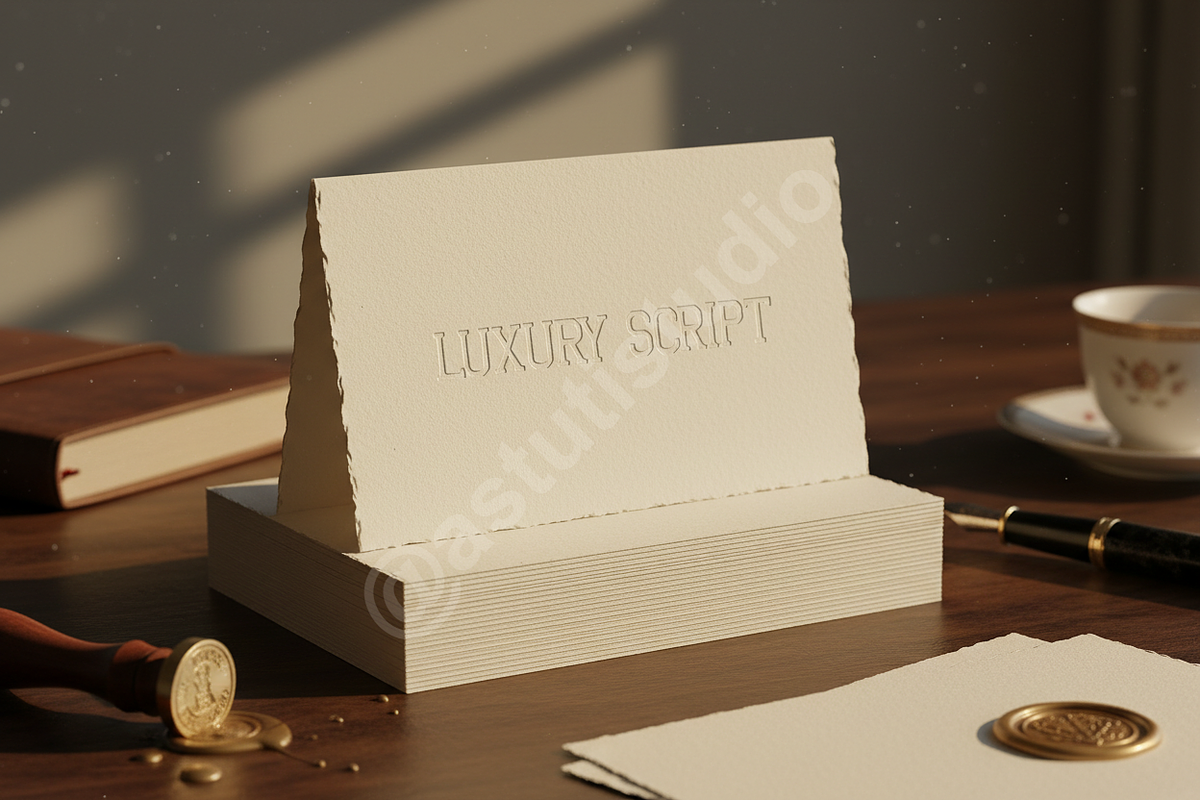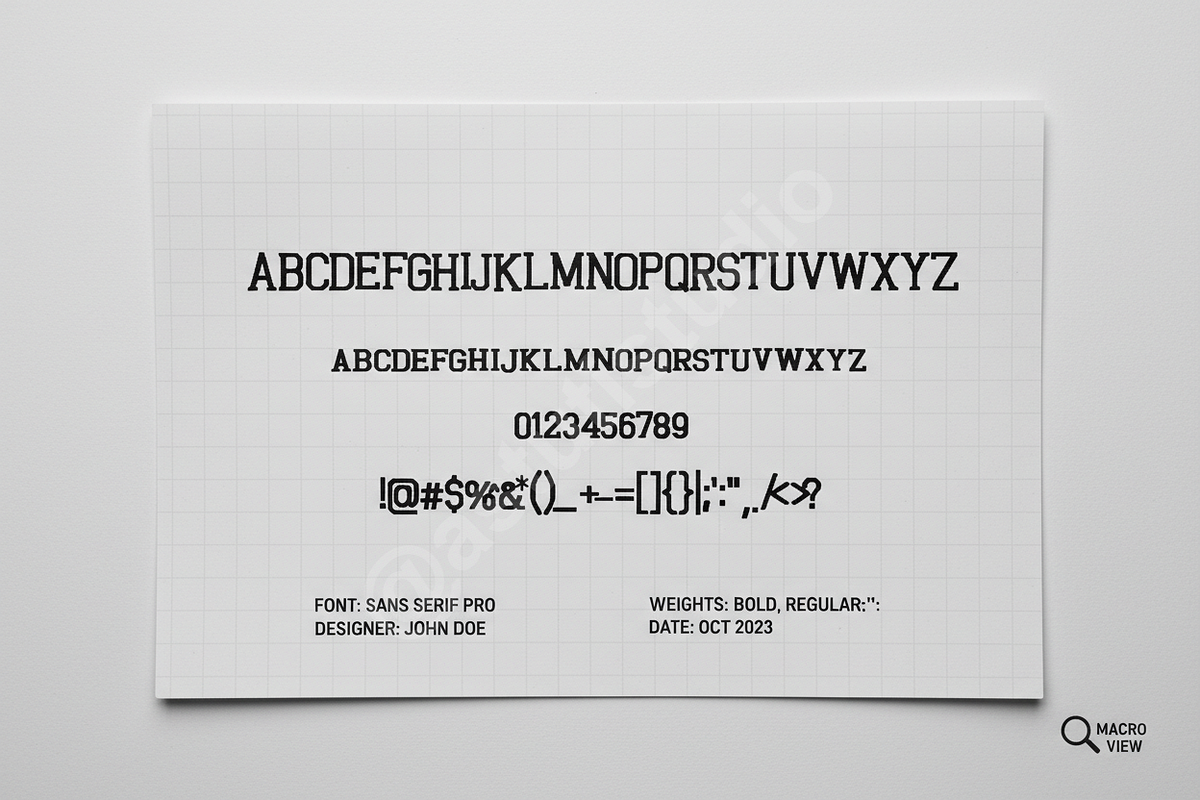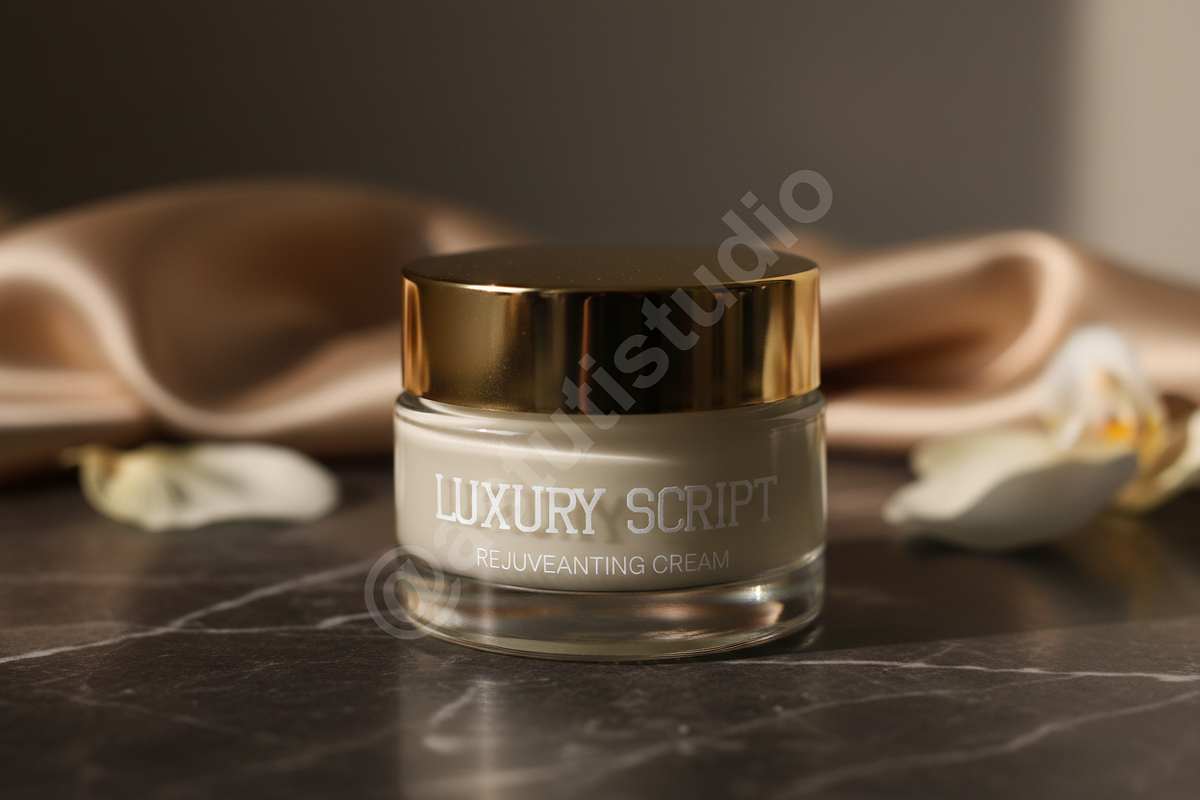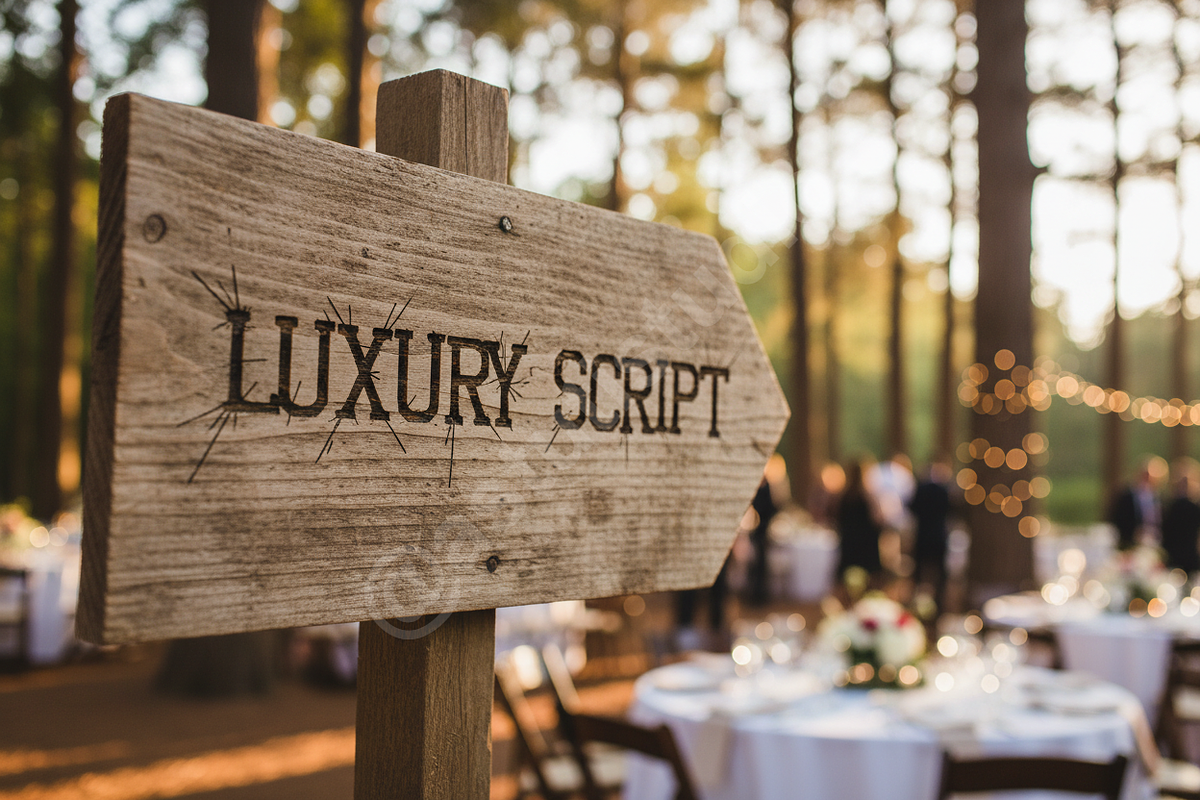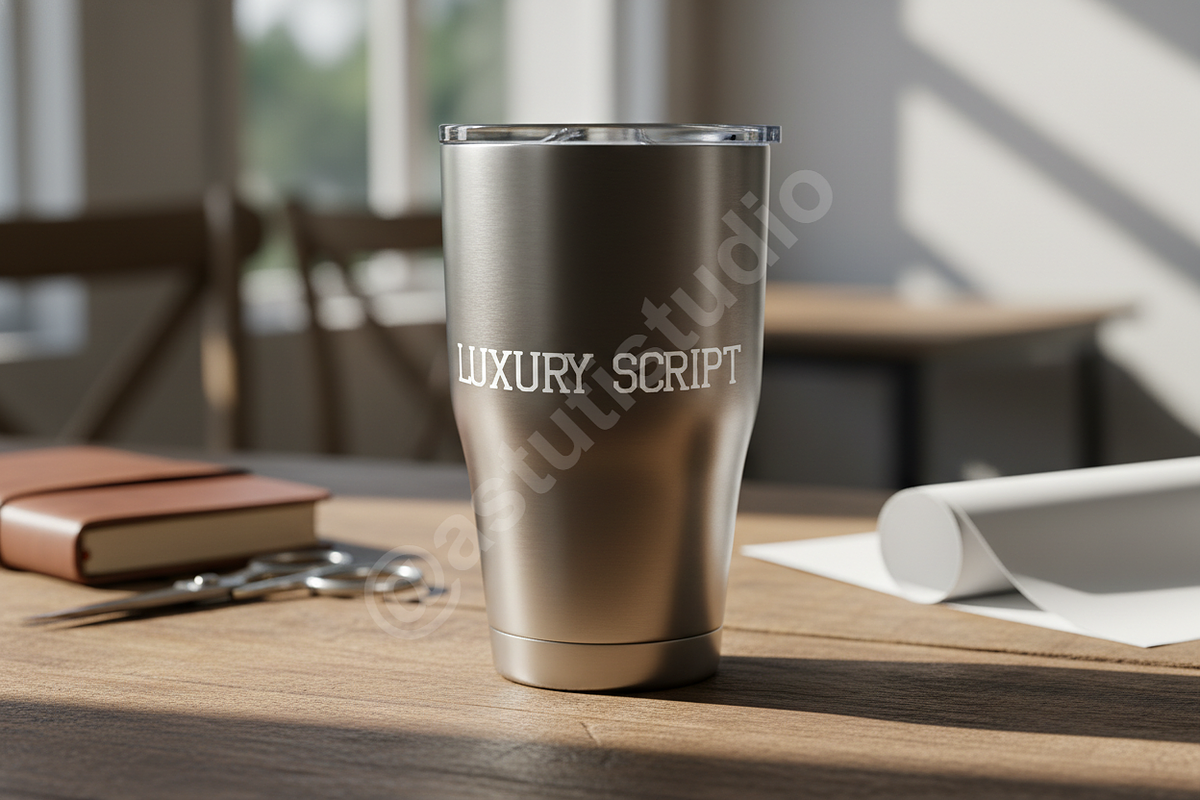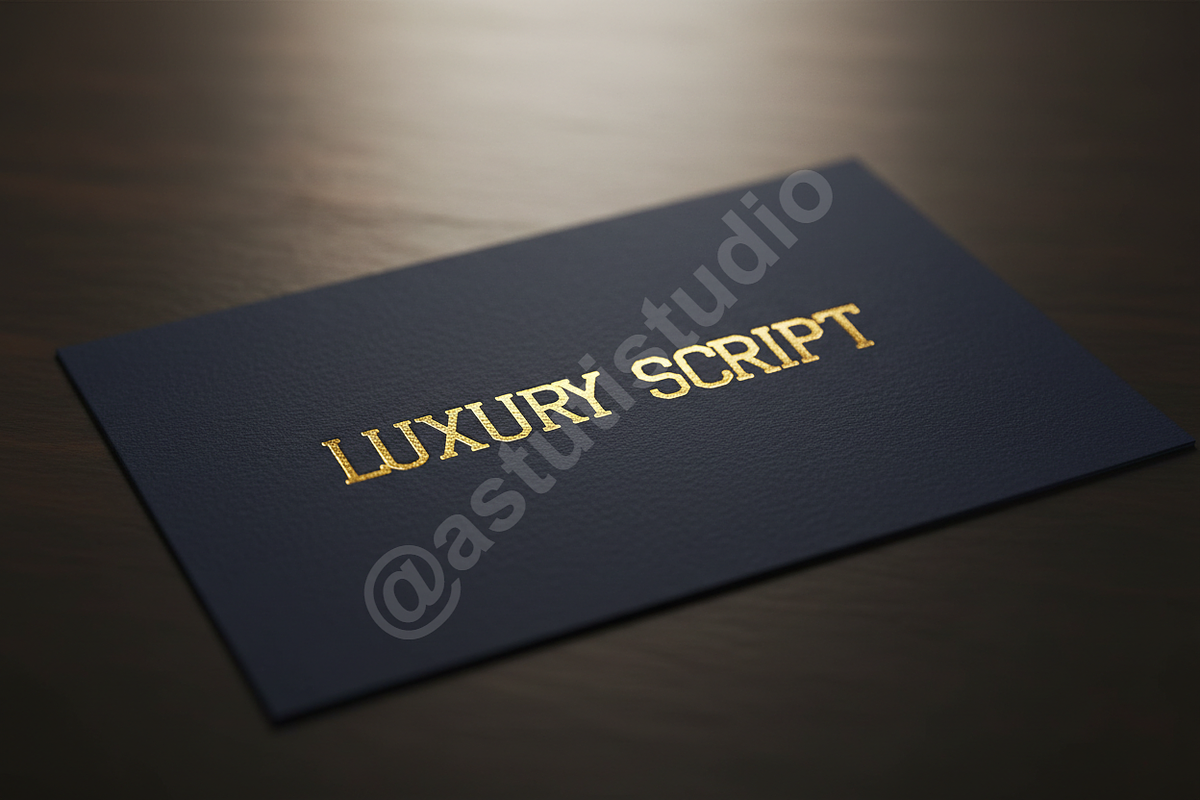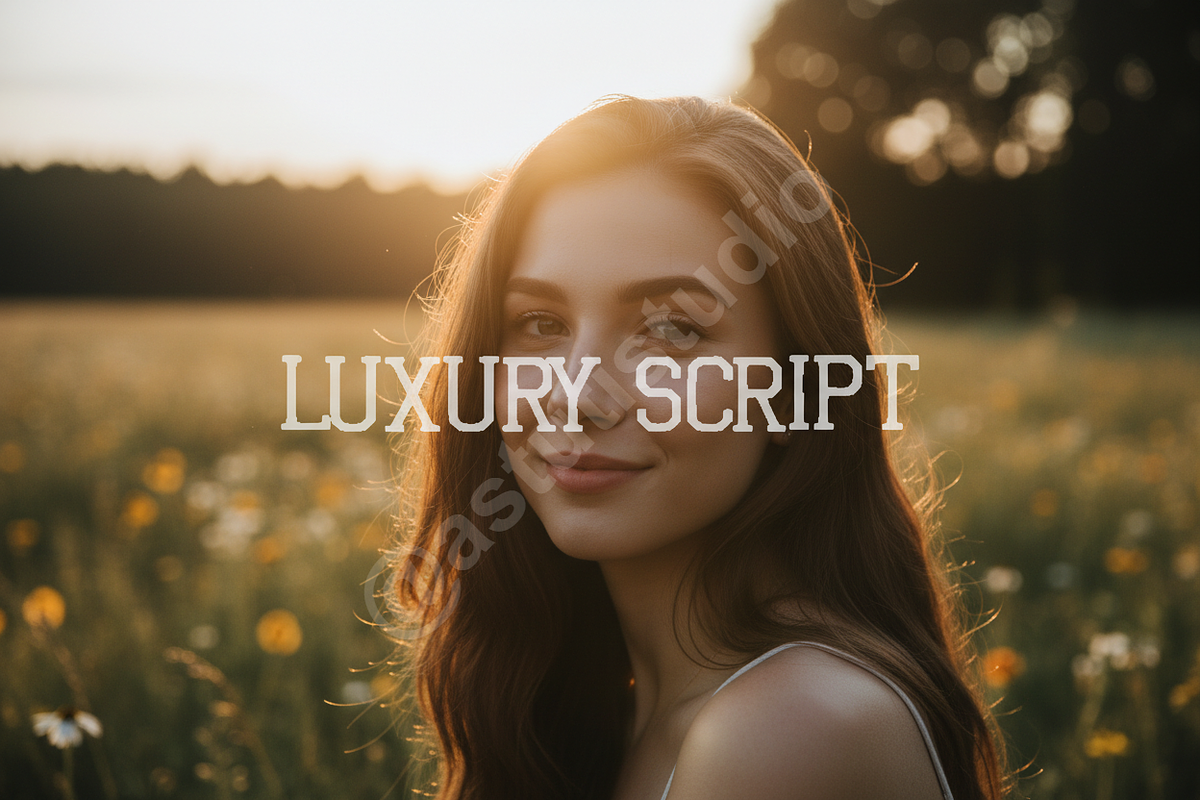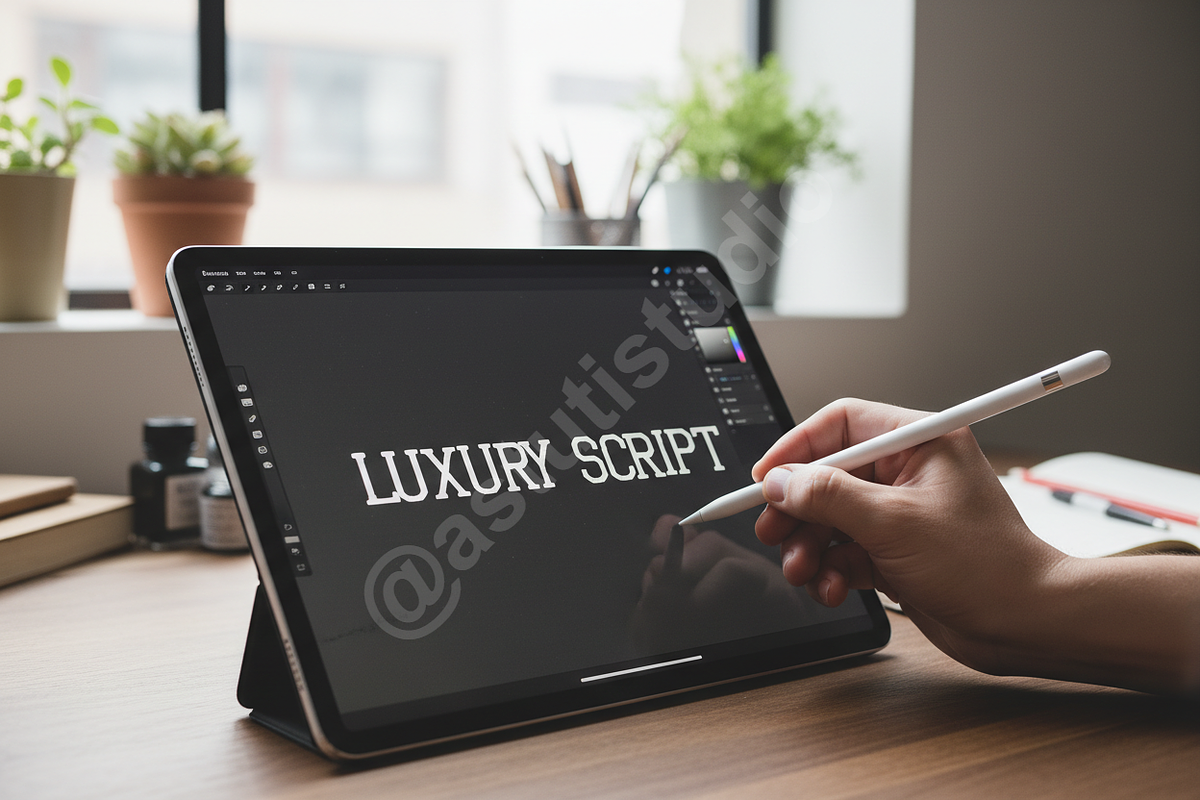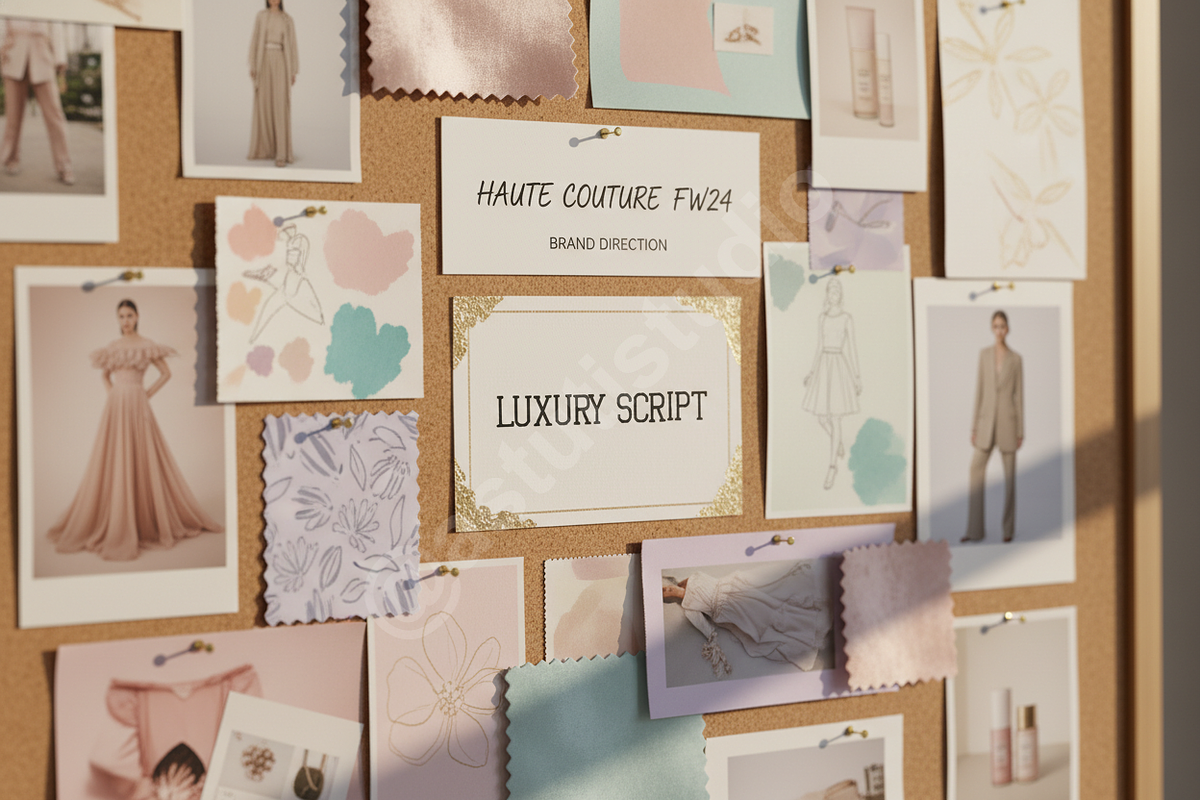
Detite Luxury Serif - Elegant Displa
Introducing Detite, a sophisticated and meticulously crafted serif typeface designed for the discerning creative. Detite embodies timeless elegance, making it the essential foundation for luxury projects that demand refinement and high visual impact. Its carefully balanced letterforms and delicate high contrast ensure maximum readability without sacrificing aesthetic purity, positioning your brand at the pinnacle of modern design.
Features & Application
Detite is exceptionally versatile, excelling in environments that require subtle drama and professionalism. It is the perfect choice for:
- Luxury Branding and Identity Systems
- High-End Editorial Layouts (Magazines, Books)
- Fashion & Beauty Campaigns
- Elegant Social Media Content and Graphics
- High Contrast weight for impactful display use